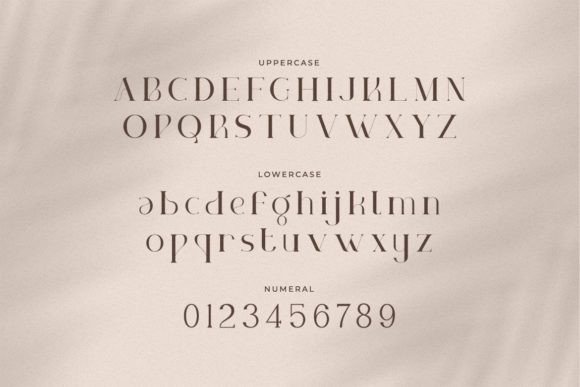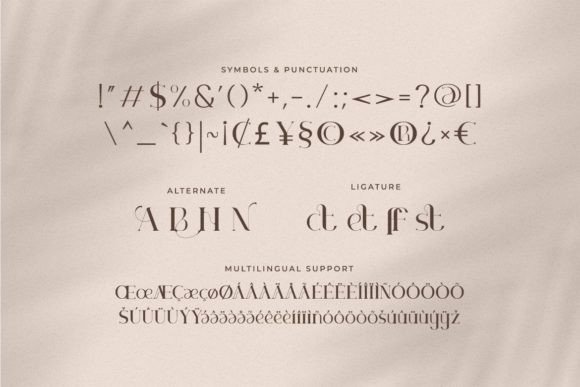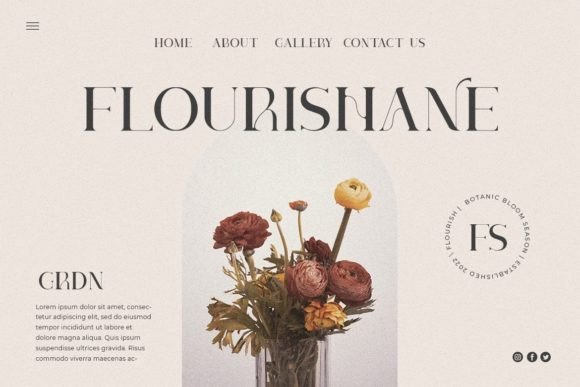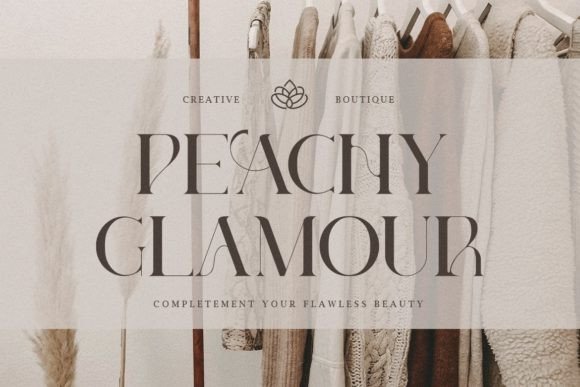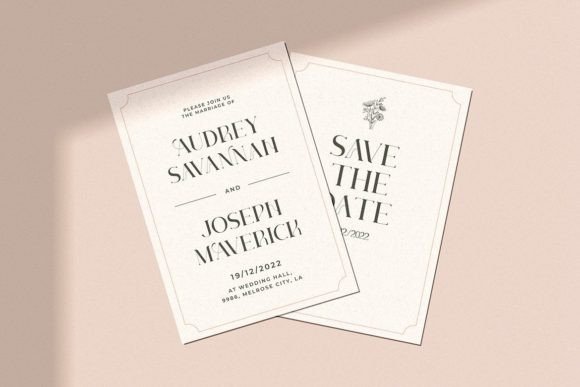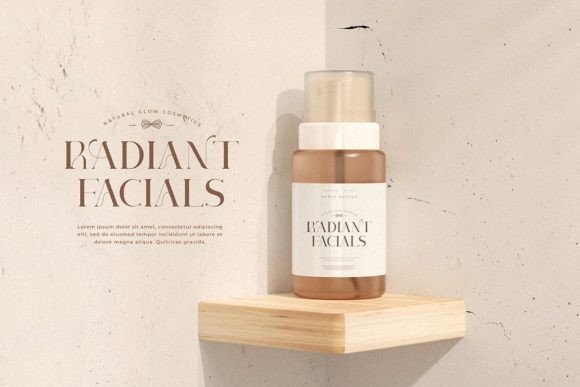
Introduction to Naive Realism Font
Naive Realism is an expressive serif font.
This serif font will be the ideal choice for any cool project or great design you wish to develop This font is PUA encoded which means you can access all of the amazing glyphs and ligatures with ease.
Key Features of Naive Realism Font